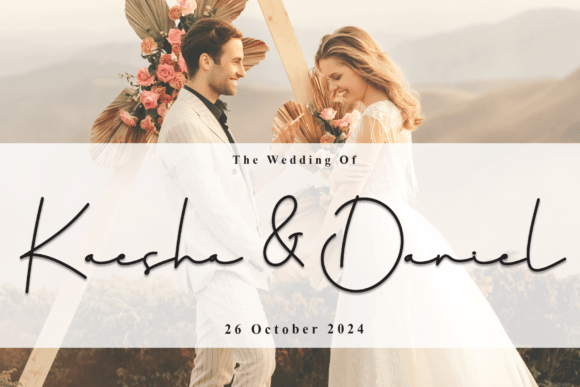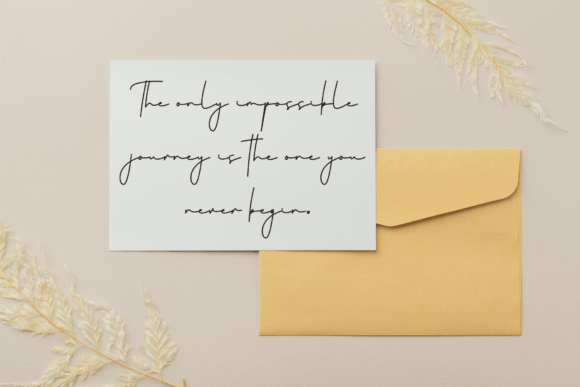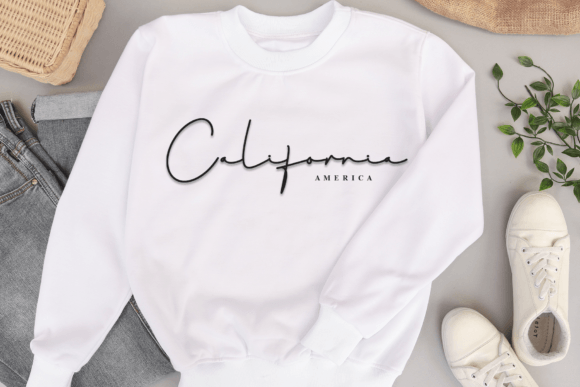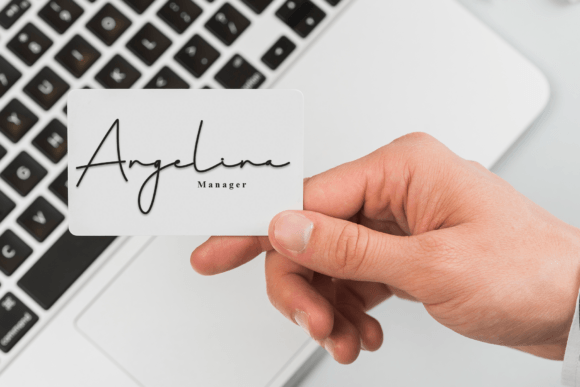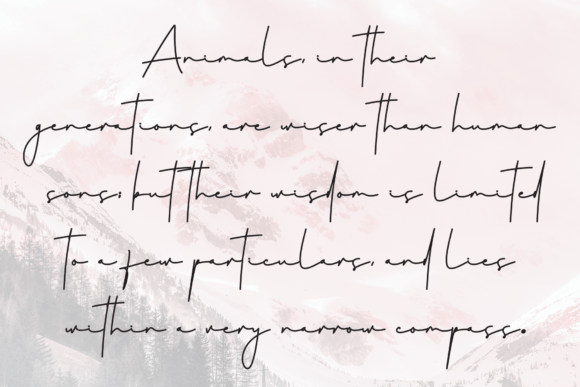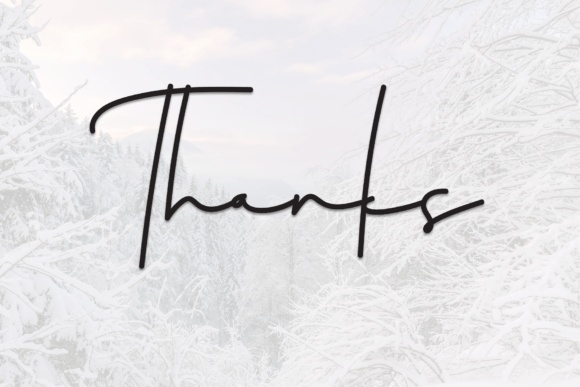
Introducing Christmas Wonderland Font: A Magical Script Font for Your Holiday Creations
Are you looking for a font that will add a touch of elegance and magic to your holiday creations? Look no further than the Christmas Wonderland Font! This beautiful script font is carefully crafted to bring a sense of wonder and enchantment to your designs, making it perfect for Christmas-themed projects, DIY crafts, and social media posts.
A Font that Combines Elegance and Whimsy
Christmas Wonderland Font is a magical script font that combines the elegance of traditional calligraphy with the whimsy of the holiday season. Its intricate letters and flowing connections evoke a sense of luxury and sophistication, making it ideal for designers and crafters who want to create high-end holiday content. Whether you’re designing a Christmas card, creating a holiday-themed Instagram post, or crafting a festive DIY project, this font is sure to impress.
Christmas Wonderland Font is a versatile font that can be used for a wide range of creative projects. Designers can use it to create stunning holiday-themed graphics, while crafters can use it to add a personal touch to their DIY projects. The font is also perfect for anyone who wants to add a touch of elegance to their social media posts, blog headers, or website content.
Key Features of Christmas Wonderland Font
- Magical script font: Christmas Wonderland Font is a carefully crafted script font that is sure to add a touch of magic to your designs.
- Elegant and whimsical: The font combines the elegance of traditional calligraphy with the whimsy of the holiday season.
- Perfect for holiday projects: The font is ideal for Christmas-themed projects, DIY crafts, and social media posts.
Tips for Using Christmas Wonderland Font
- Pair it with complementary fonts: Pair Christmas Wonderland Font with complementary fonts to create a stunning holiday-themed graphic.
- Experiment with colors and textures: Experiment with different colors and textures to add depth and interest to your designs.
- Use it for headlines and titles: Use Christmas Wonderland Font for headlines and titles to add a touch of elegance and sophistication.
Christmas Wonderland Font is a magical script font that is sure to add a touch of elegance and whimsy to your holiday creations. Whether you’re a designer or crafter, this font is perfect for anyone who wants to create stunning holiday-themed graphics, DIY projects, or social media posts. With its intricate letters and flowing connections, Christmas Wonderland Font is sure to become a favorite in your font collection.